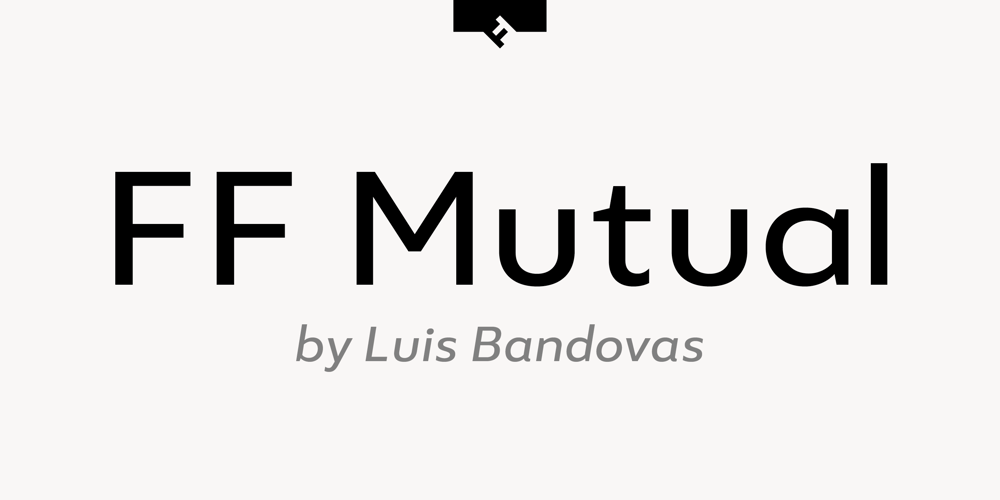
FF Mutual Font Family was designed by Luis Bandovas and published by FontFont. FF Mutual contains 10 styles and family package options. FF Mutual is a friendly geometric sans serif full of subtle, unexpected details. Designer Luis Bandovas drew inspiration from an unlikely source—the credits from one of his favorite childhood shows, Space 1999—and turned that spark into a typeface that is warm and approachable, but contemporary.Bandovas built FF Mutual on a geometric skeleton, but the typeface has enough humanist touches to offset the rigidity usually found geometric designs. These touches are most apparent in the italics, where curved strokes on the “a” and “l” bring a softness to text. Generous spacing, angular details on letters like the “r” and “t,” and flared terminals on the “e,” “s,” and “c,” add further character to the design. FF Mutual’s bold shapes and retro-inspired warmth make it ideal for headlines, where the subtle details can really shine. The typeface is similarly well-suited for small blocks of text such as captions and call-outs, packaging design, and branding.